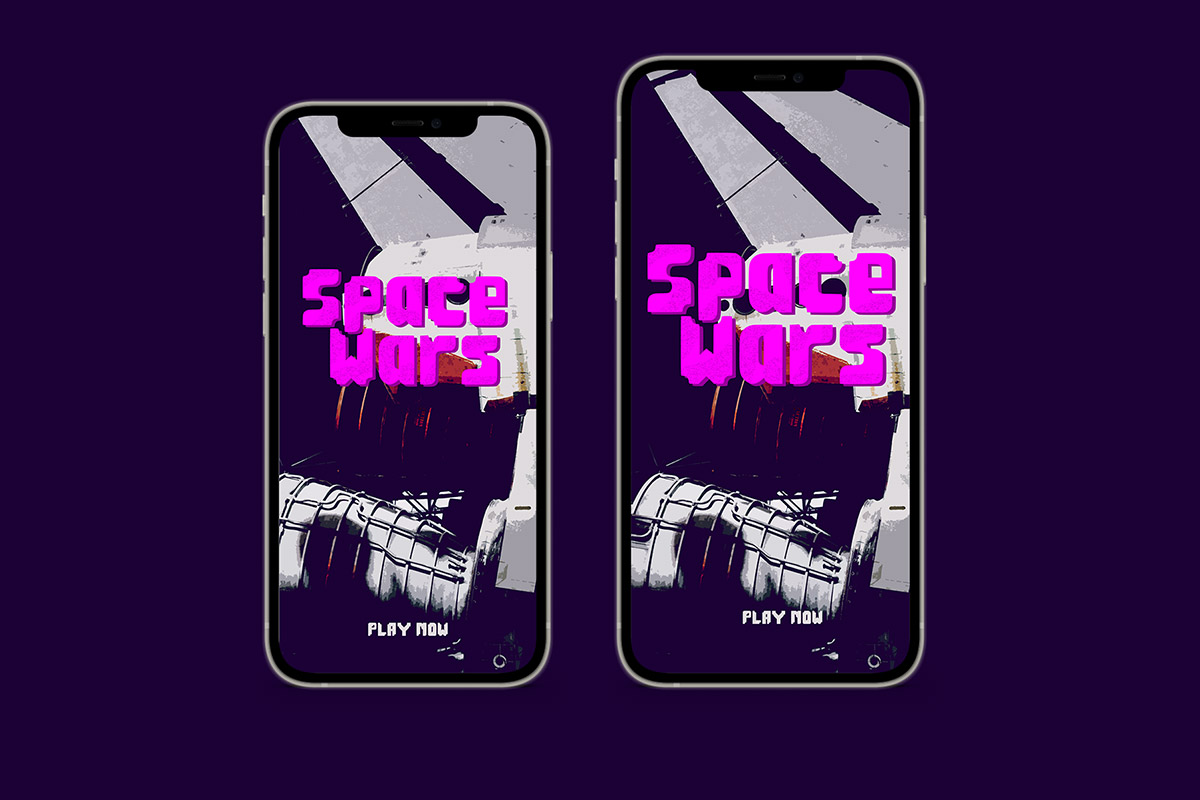
New Stilere Display Font New Stilere Modern Display Font presents a very unique and attractive appearance of decorative typography. This font is a variation of a decorative font that adheres to an urban feel at night. Not only in the form of ordinary letters but the typeface is also equipped with shadows and light that surround it and looks modern and mysterious. Talked about readability, each New Stilere Modern Display Font glyph character has a clean, large appearance, making them distinguishable from one another and suitable for large-size printing. New Stilere Modern Display Font was made to brighten up a night party. It can be used as posters and banners. Large printed banners with large font sizes will also be the best choice when using this type of font to welcome party-themed banners and posters for the invitees. This font will catch everyone's eyes on the words when entering a room. You can also use the New Stilere Modern Display Font in other products, like; t-shirts, book covers, and brand product tags. Companies that produce goods with modern themes can also use this font in their products. This font can also be used as decoration in places that people frequently visit, such as; shopping malls, restaurants, and bars. Our display and decorative fonts collection is compatible with usage as Figma fonts, Canva fonts, Freepik Fonts, and Adobe Fonts. They also work as Windows Fonts and Apple Fonts. For your social media needs, you can use and install fonts in our collection of.